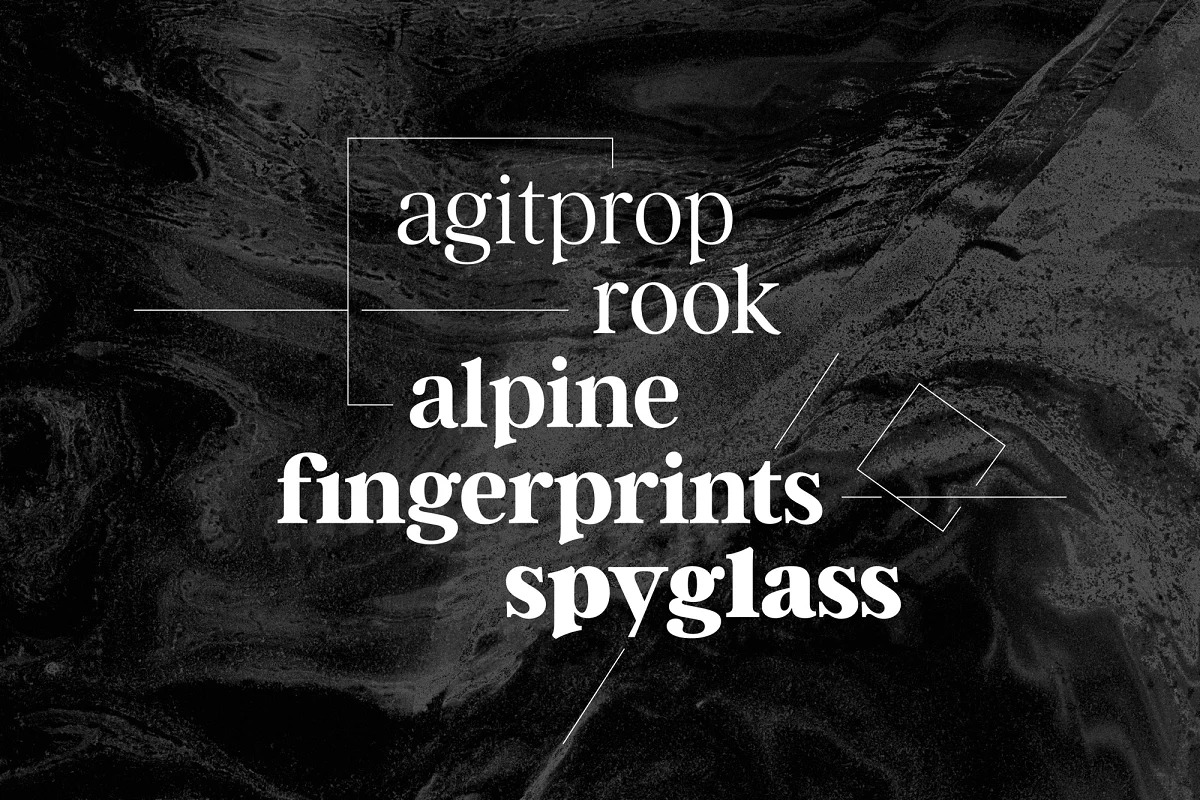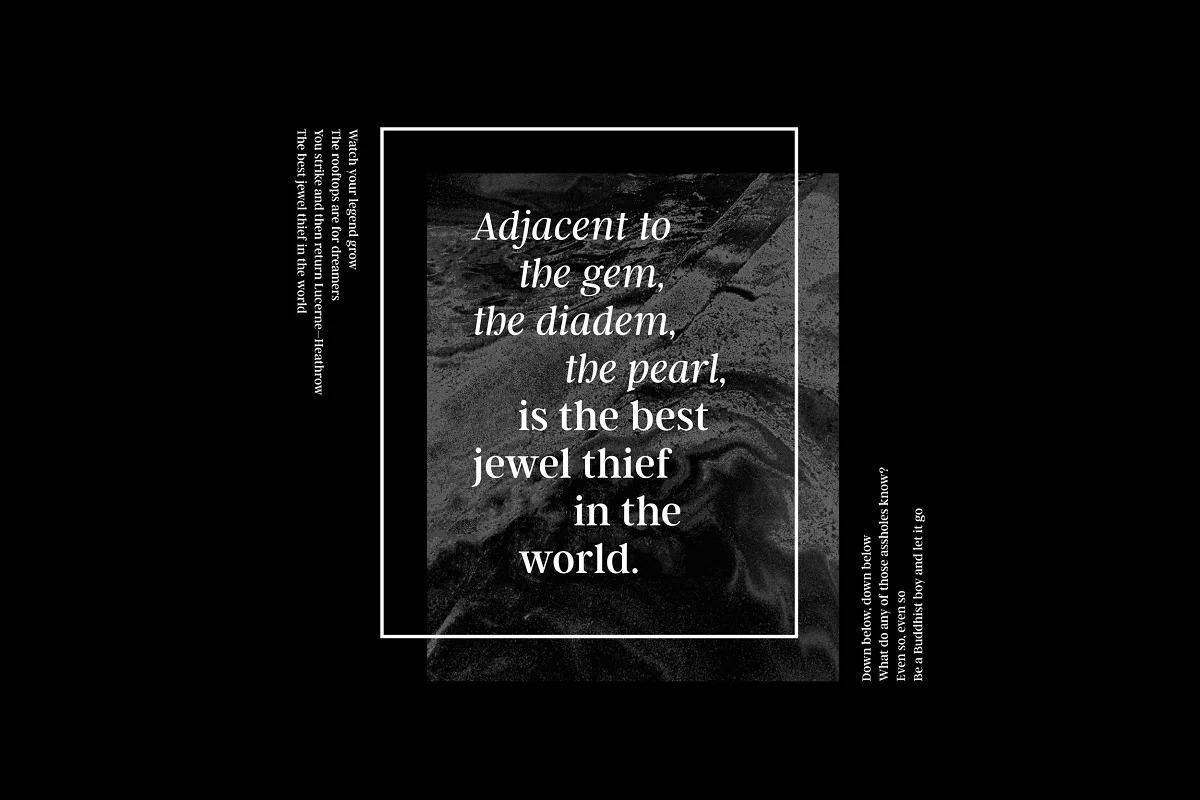
Argent CF Font Family
Argent CF Serif Font
Argent CF Serif Font is a contemporary high-contrast serif typeface created by Connary Fagen with a distinctive look. Argent is dashing and expressive, with a pronounced x‑height and evocative, flowing letter­forms. Featuring true italics, wide language support, a host of OpenType features, and lots of character, Argent a tribute to the past and a step into the future.